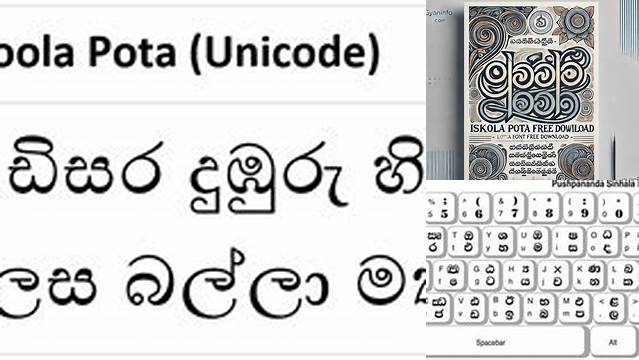
Hey everyone! If you're on the hunt for Sinhala fonts and want to download them for free in PDF format, you're in the right place! We're going to dive into the world of Sinhala fonts, focusing on the popular Iskoola Pota font, and show you how to grab those PDFs easily. Whether you're a student, a designer, or just someone who loves Sinhala script, this guide is for you. Let's get started, shall we?
Understanding Sinhala Fonts: Why They Matter
First things first, why are Sinhala fonts so important? Well, guys, they're the building blocks of communication in the Sinhala language. Sinhala, also known as Sinhalese, is spoken by millions of people in Sri Lanka and around the world. Without the right fonts, you can't read or write Sinhala properly on your computer or mobile device. Think about it: you wouldn't be able to read a book, create a presentation, or even send a simple email in Sinhala without these fonts. That's why having access to reliable and visually appealing Sinhala fonts like Iskoola Pota is crucial.
Iskoola Pota, in particular, is a widely used and respected font. It's known for its clarity and readability, making it a favorite among writers, designers, and everyday users. It’s designed to be easy on the eyes while maintaining the elegance of the Sinhala script. This font is not just about aesthetics; it's about making sure your message is understood and appreciated. Whether you’re working on a school project, designing a poster, or writing a heartfelt letter, the right font can make all the difference. Imagine trying to read a long document with a font that's difficult to decipher – it would be a frustrating experience, right? That's why choosing a font like Iskoola Pota is essential. It ensures your content is accessible and enjoyable to read. Additionally, when you’re working with Sinhala content, having a good font is also about respecting the language and culture. It shows that you care about presenting the text in a way that is both accurate and visually pleasing. So, whether you're a seasoned professional or just starting out, understanding and using Sinhala fonts like Iskoola Pota is a must. It's about enhancing your communication and celebrating the beauty of the Sinhala language. And that, my friends, is something worth investing time in.